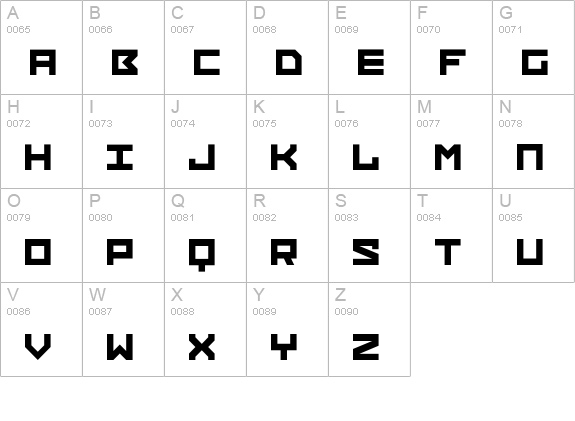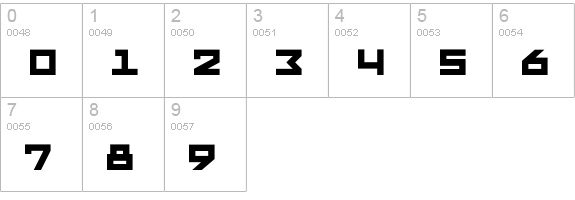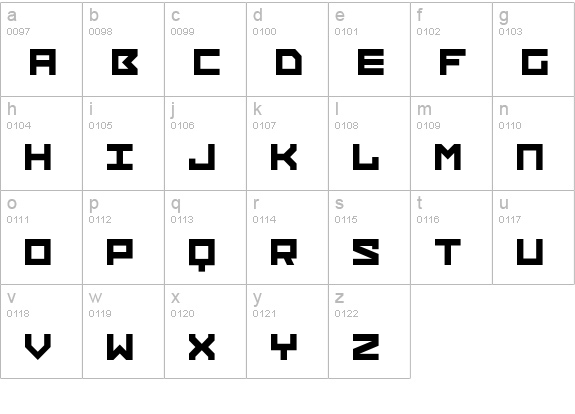
The Network font is a sleek and modern typeface that exudes a sense of connectivity and innovation. Its clean lines and geometric shapes make it perfect for projects that require a contemporary and tech-savvy aesthetic. Whether you're designing a website, a logo, or a presentation, the Network font will add a touch of sophistication to your work. The best part? This stylish font is completely free to download at FontsMarket.com. With just a few clicks, you can bring the Network font into your design arsenal and elevate your projects to the next level. Don't miss out on this fantastic opportunity to enhance your creative endeavors with this versatile and eye-catching typeface. Download the Network font today and start creating stunning designs that make a lasting impression.